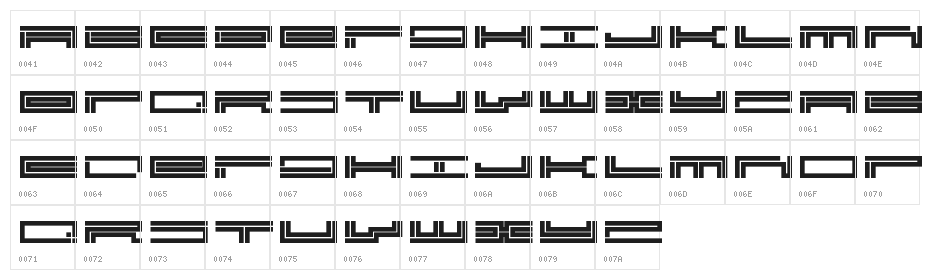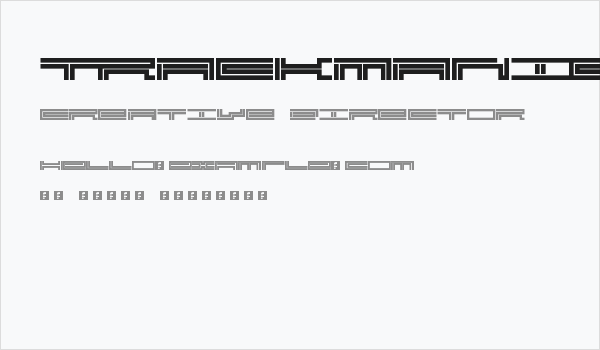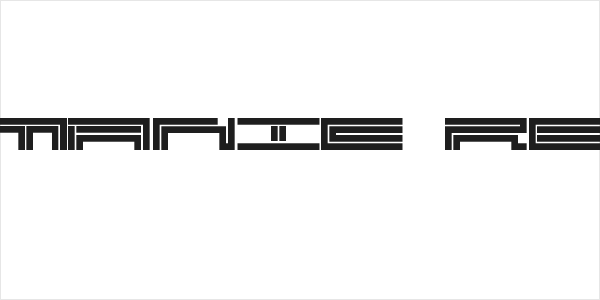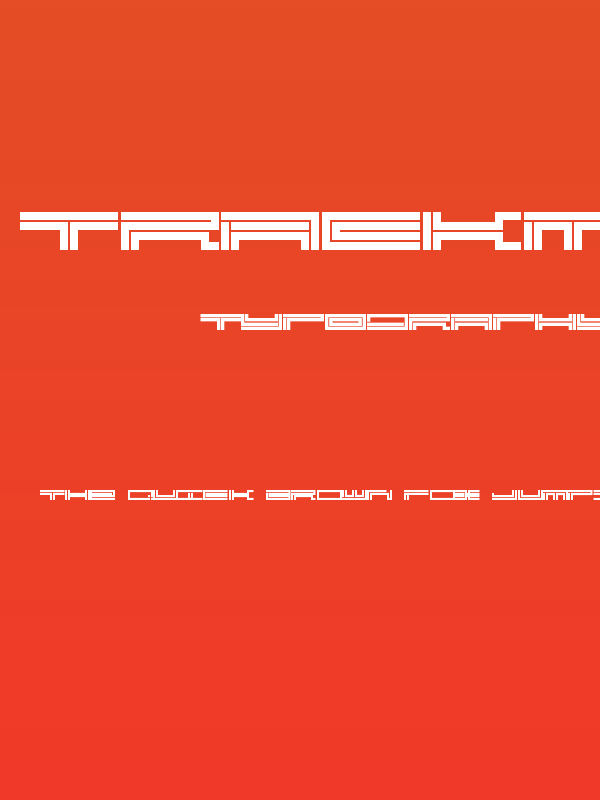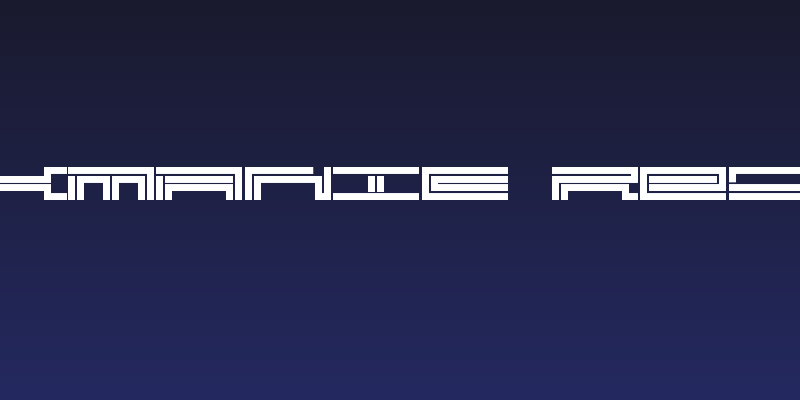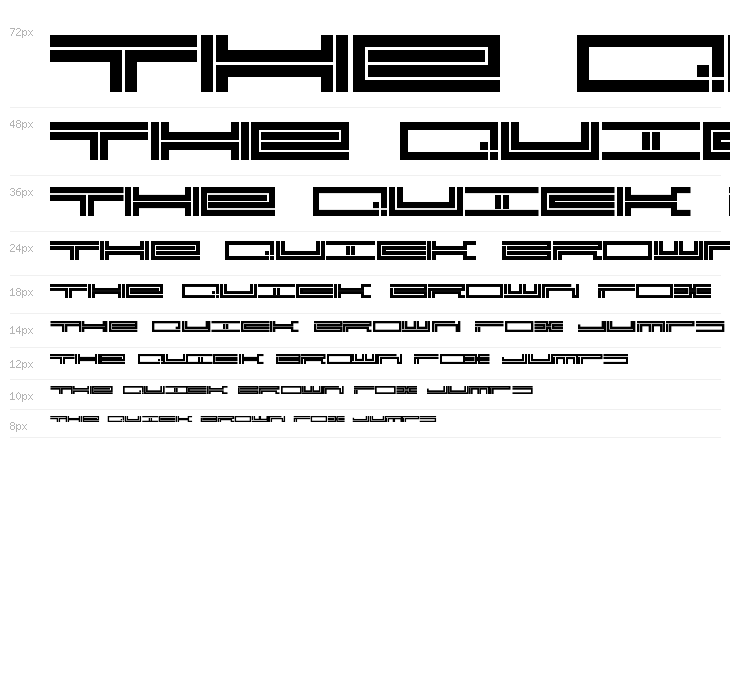
TrackManic Regular Font
TrackManic Regular Description
This font features a futuristic and geometric design, characterized by its sharp angles and intricate line work. Each character is constructed with a series of parallel lines and rectangular shapes, creating a sense of movement and complexity. The uppercase letters are bold and structured, while the lowercase letters maintain the same design ethos with slightly more compact forms. The numbers and special characters follow the same pattern, ensuring consistency across the entire typeface. This font's unique style makes it stand out, offering a modern and tech-inspired aesthetic.
Proposed ProjectsIdeal for tech branding, sci-fi posters, video game titles, and digital art projects.